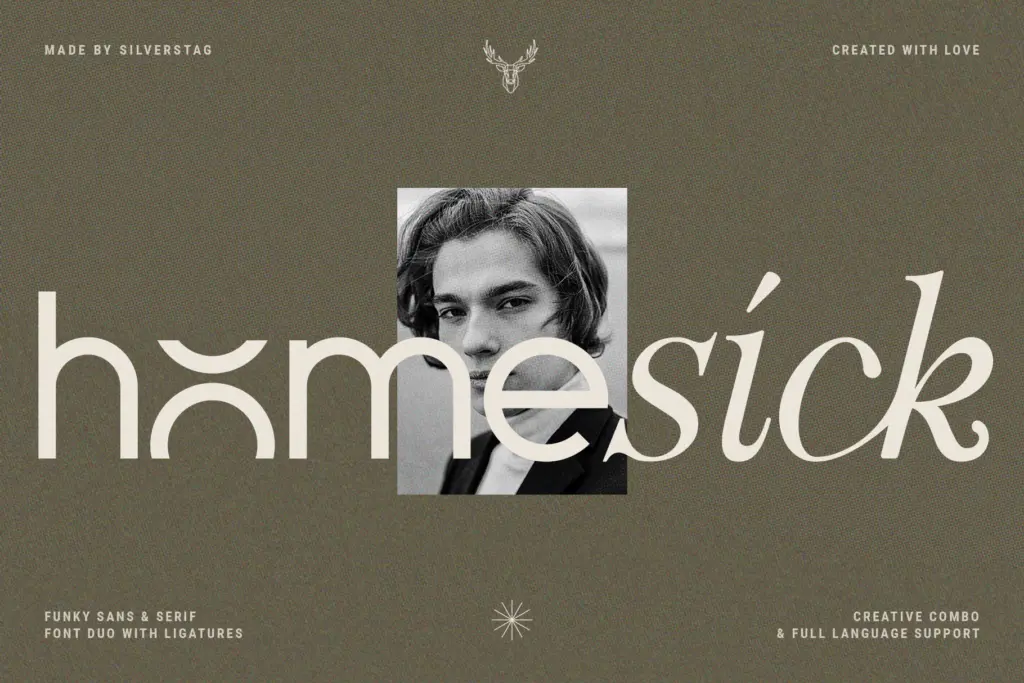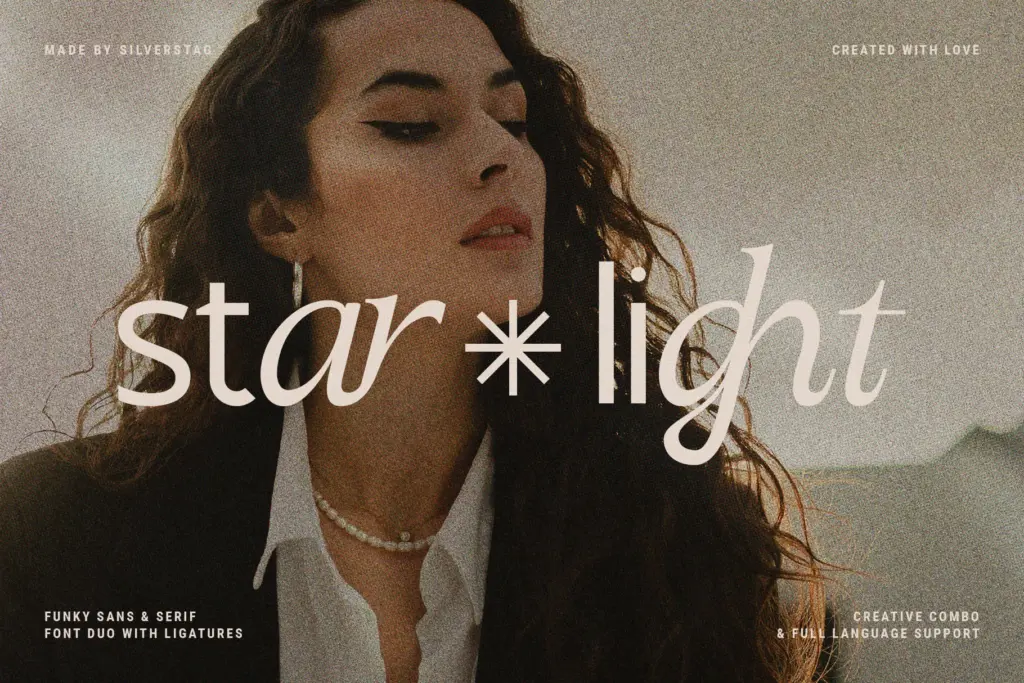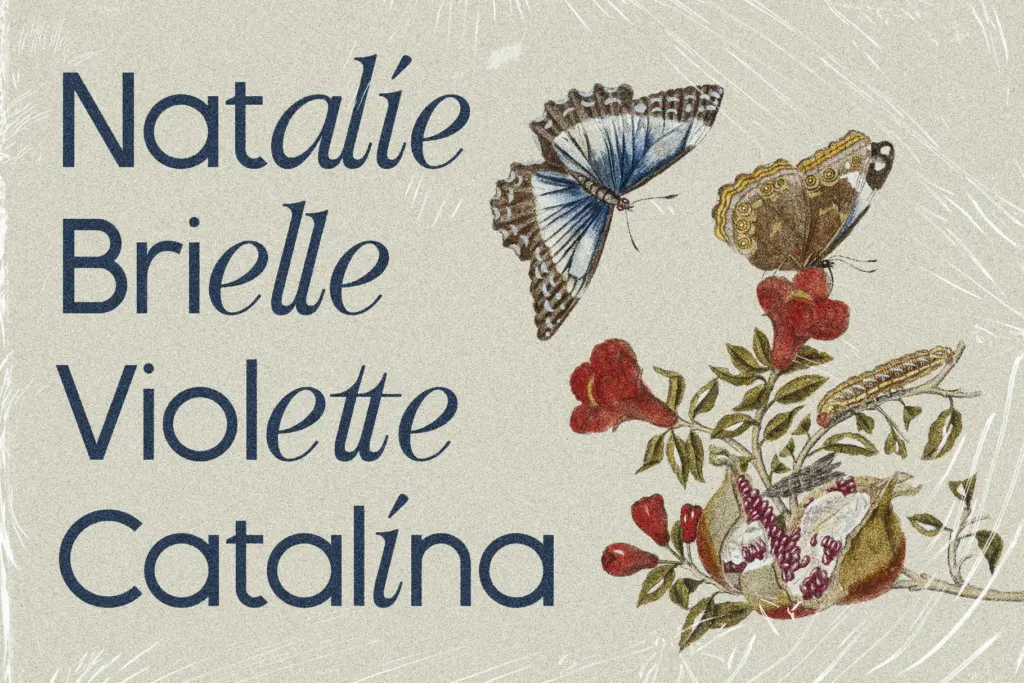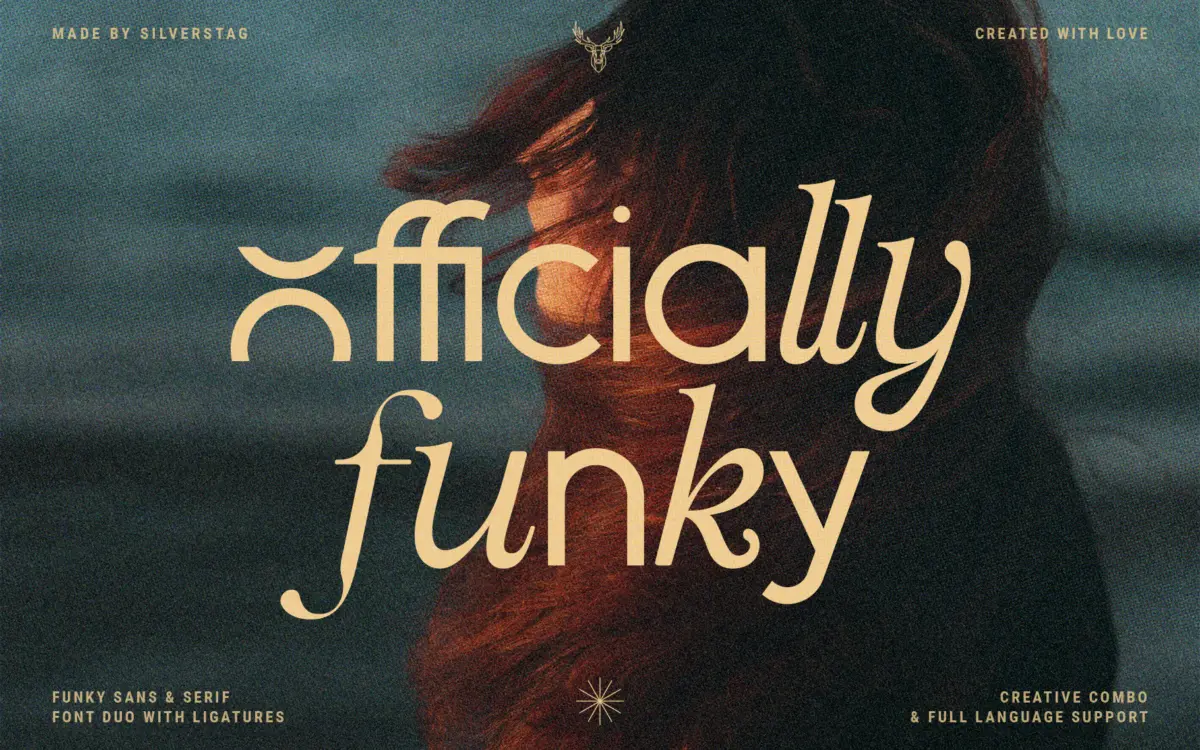
Officially Funky bills itself as a font duo but arrives as a single character set: a plain, geometric-leaning sans carries the base alphabet, and a set of alternate serif letters sits underneath it, ready to swap in on individual characters. The sans half is unremarkable by design — even stroke widths, closed apertures, no real personality of its own. That’s the point. It’s a stage for the serif alternates and the ligature set to perform on.
The alternates are where the ‘funky’ promise actually lives. Swapped-in serif characters bring bracketed serifs and slightly flared terminals that read as a nod to vintage signage rather than any particular historical revival. Mixed with the sans letters in the same word, the effect is genuinely a bit odd — in a good way, if you’re after a hand-built, imperfect logotype feel rather than a clean system.
The headline feature is the ligature set: more than 45 combinations spanning both the sans and serif alternates. These aren’t the usual fi/fl fixes — they’re stylistic connections meant to make short words or names look custom-built rather than typed. Numerals and punctuation are included, and the font comes with a web font kit alongside the OTF, plus instructions for triggering alternates in common apps and in Canva, which matters because OpenType alternate access is inconsistent across design software and this is clearly built with that friction in mind.
What’s missing is any indication of true multi-weight structure — this is a single-weight design with alternate glyphs, not a duo of independently drawn typefaces with a weight or style relationship. That’s worth knowing going in: you’re not getting a display face and a text face that were drawn to work together at a system level. You’re getting one alphabet with a bonus set of swap-in characters.
This is a font for short bursts of text where personality matters more than reading comfort: logotypes, Instagram graphics, product labels, wedding save-the-dates, single-word headlines. The ligatures and alternates only really pay off on names, monograms, and short phrases — set a paragraph in it and the mixed-serif gimmick becomes visual noise rather than character. Anyone doing brand identity work for boutiques, florists, or lifestyle products where a slightly retro, handmade signature look is wanted will get the most mileage here.
It’s not a working typeface for body copy, UI, or anything that needs sustained legibility at small sizes — the alternate glyphs actively work against that. And because the sans base is so plain, using this font without engaging the alternates and ligatures gives you a fairly forgettable result; the value is entirely in the swap-in system, which means the buyer has to do some manual glyph substitution to get what’s advertised on the box.
- Over 45 ligatures give short words and names a genuinely custom-built look
- Alternate serif glyphs let one font produce two visually different moods
- Includes a web font kit and app-specific instructions for accessing alternates
- The base sans is plain and forgettable without manually applying alternates and ligatures
- Not a true weight-paired duo, and unsuitable for anything beyond short display text
Officially Funky is a plain sans dressed up with serif alternates and a big ligature set, best suited to logotypes and short decorative phrases. It's not the true two-typeface duo the name implies, and it has no real use beyond display-length text, but for quick boutique branding work it delivers a distinctive, hand-built look with minimal effort.